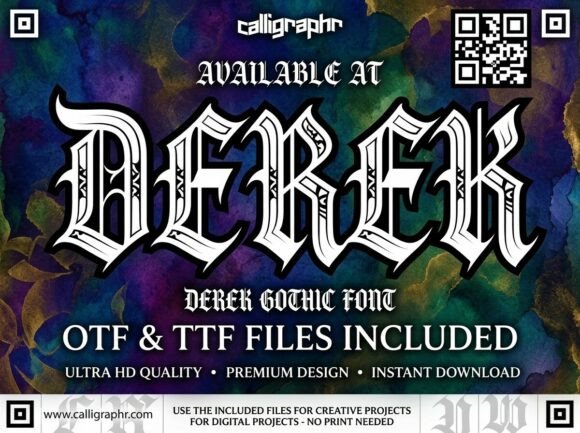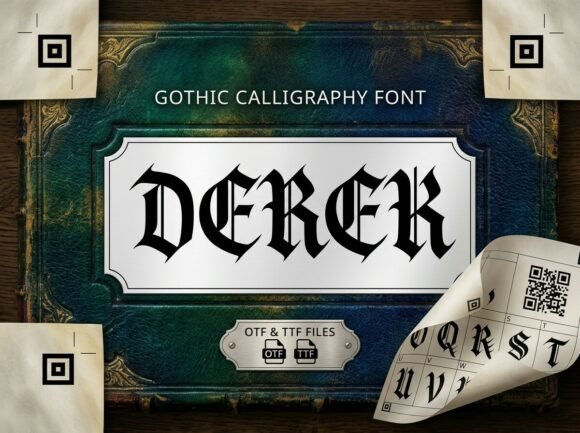
The Ultimate Display Font: Unleashing the Power of Derek Font
Have you ever been working on a design project, pouring your heart and soul into it, only to hit a roadblock when it comes to finding the perfect font? I know I have. It was during one of those moments, while trying to create a stunning logo for a client’s boutique brand, that I stumbled upon Derek Font. This decorative display font has been a game-changer for me, and I’m excited to share my experience with you.
- ✅ Unique artistic elements that make your designs stand out
- ✅ Strong visual personality that’s perfect for bold headlines and logos
- ✅ Versatile enough for various design applications, from packaging to branding
- ✅ Professional and polished finish that elevates your work
Small Quirks and Limitations ⚠️
While Derek Font is an amazing display font, there are a few things to keep in mind:
- 🤔 It’s an ALL-CAPS (Uppercase Only) display typeface, which means it doesn’t include lowercase letters.
- 🤔 It’s specifically designed for high-impact headlines, logos, and decorative initials, so it might not be the best fit for body text or longer content.
The Designer Inspiration Behind Derek Font
While the true story behind Derek Font’s creation is unknown, it’s easy to imagine a designer who was tired of ordinary fonts and wanted to create something truly unique. Perhaps they were inspired by the art deco movement, with its emphasis on bold lines, geometric shapes, and luxurious materials. Whatever the inspiration, the result is a font that’s both visually striking and highly versatile.
| Is Derek Font suitable for body text or longer content? | No, Derek Font is specifically designed for high-impact headlines, logos, and decorative initials. It’s not recommended for body text or longer content. |